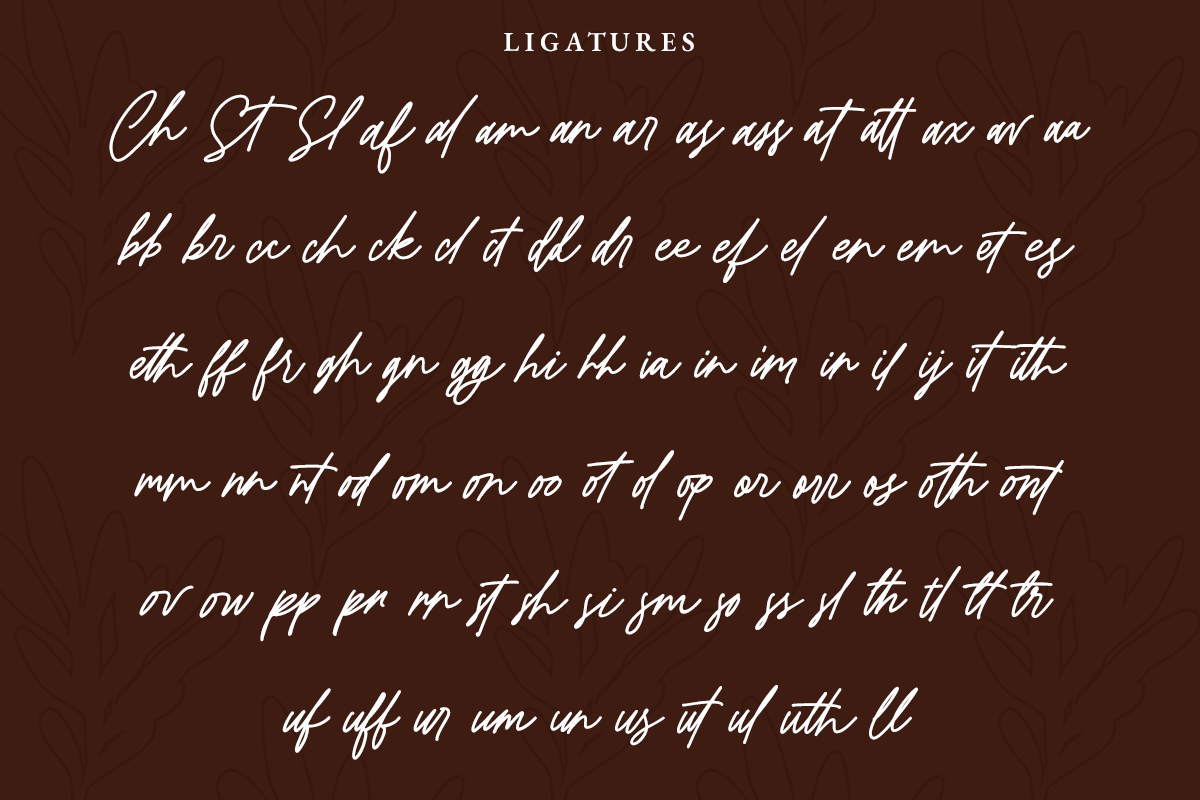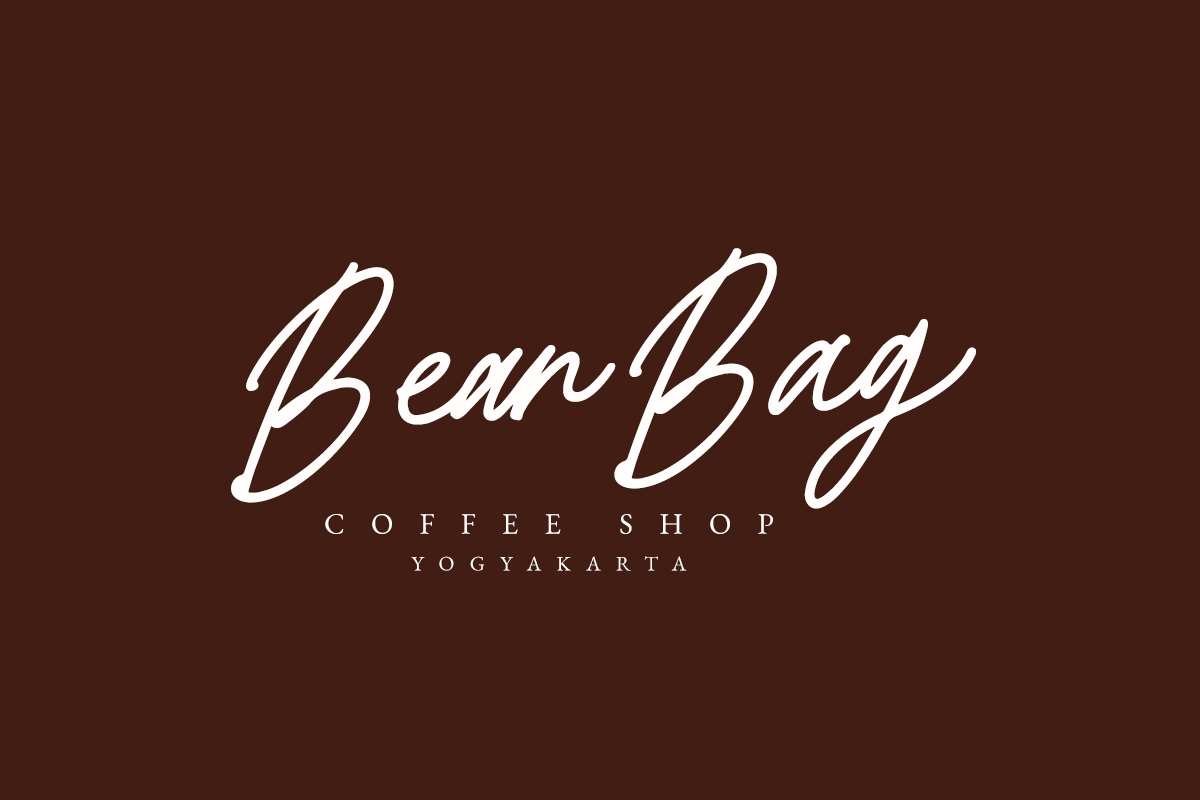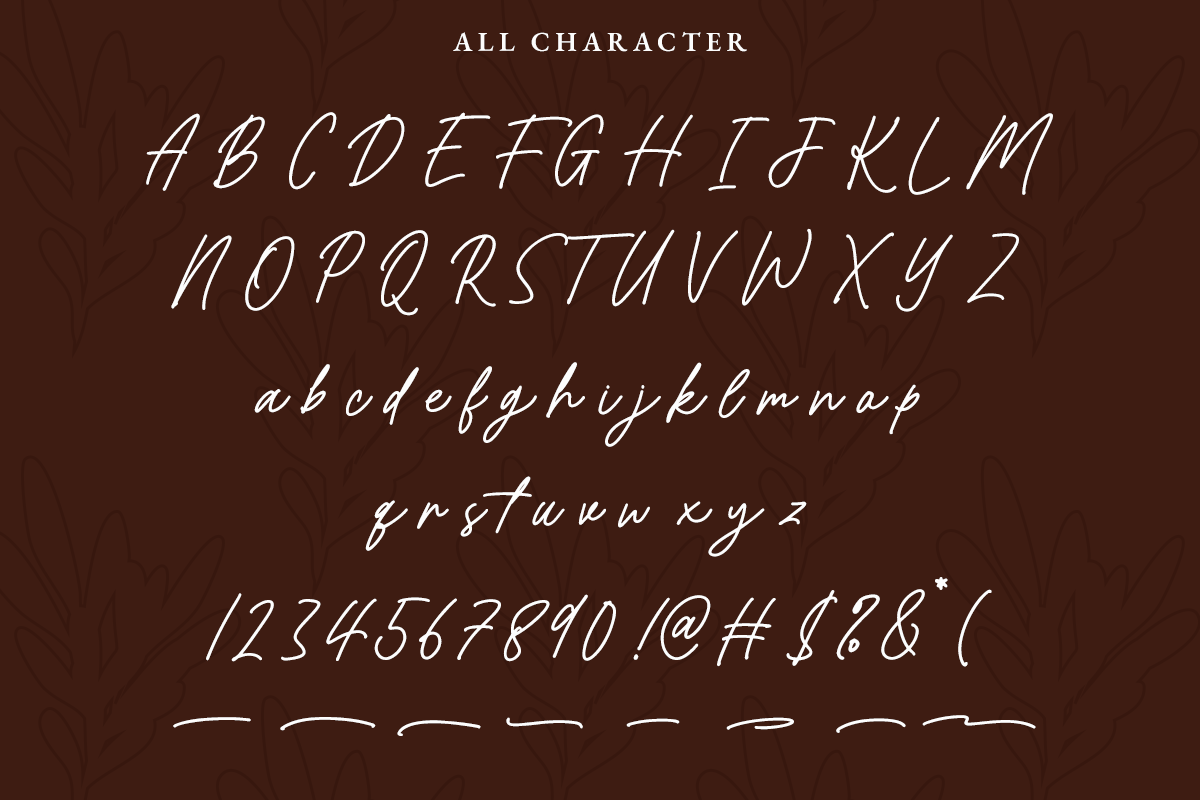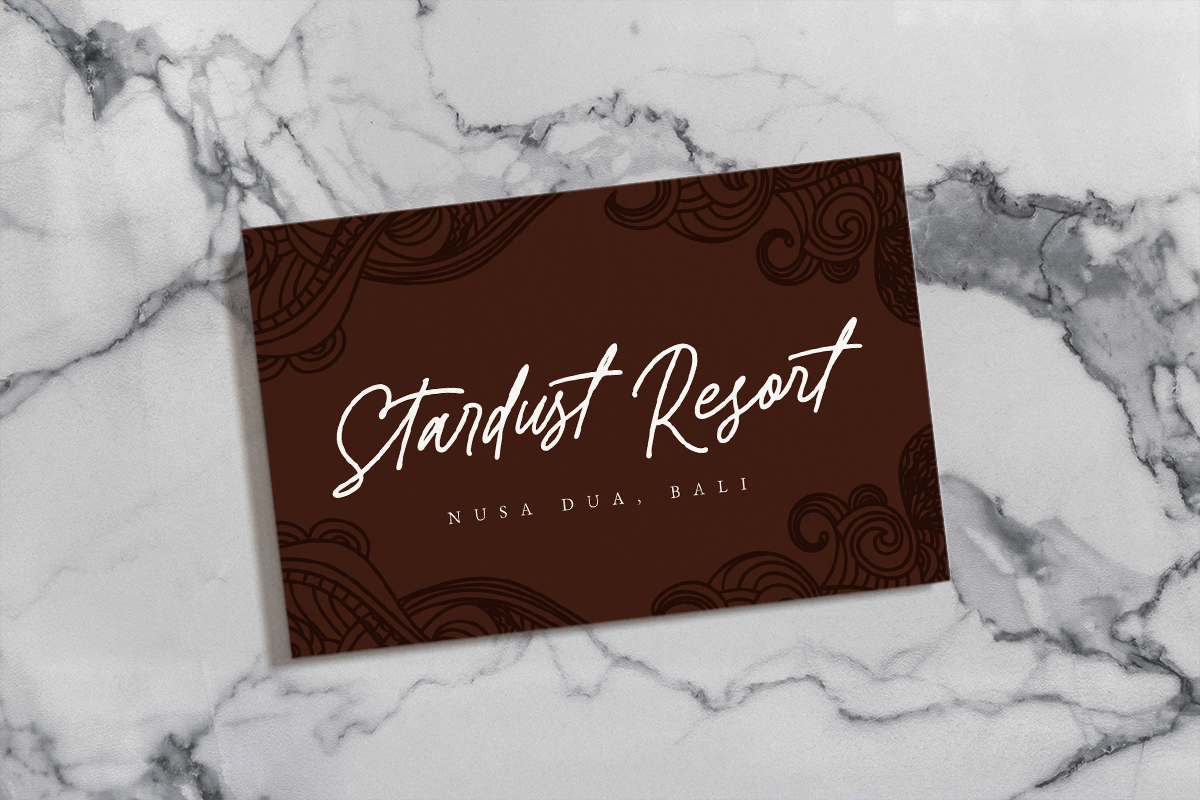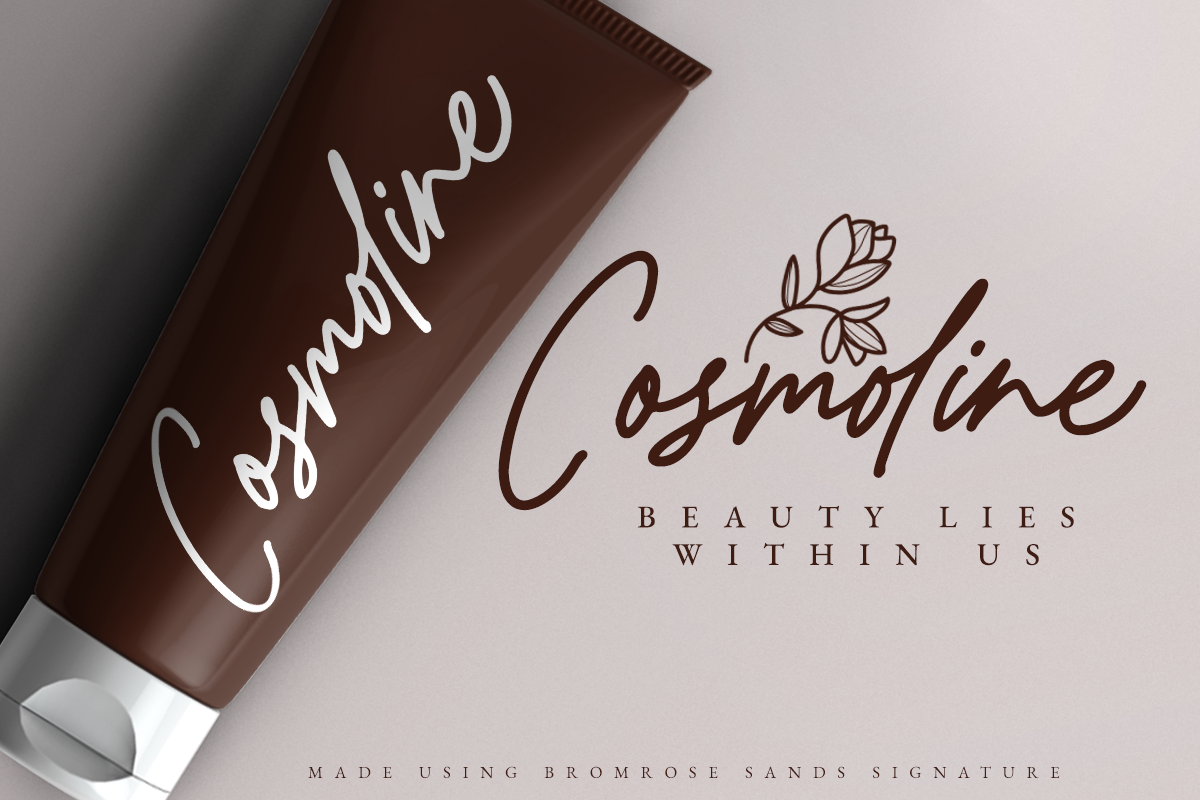
Bromrose Sands Signature
Introducing, Bromrose Sands Signature! A lovely Signature that comes with LOTS of ligatures that make every type using this font looks natural. This font is Perfect for quotes, logo, branding, magazines, wedding invitation,packaging, stationary, or any advertising purpose. To access the underline just type _+(number 1-8), example : woodland_1 , woodland_2, etc.
- swash